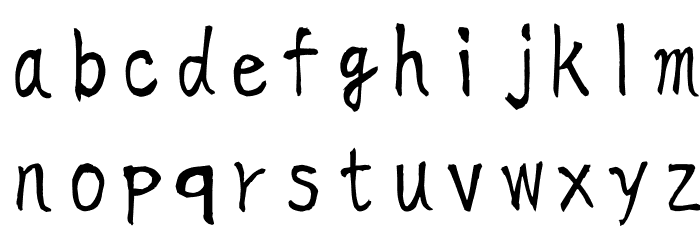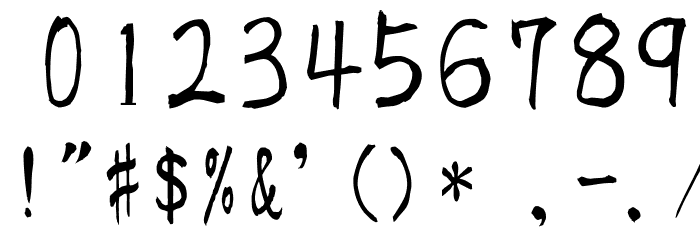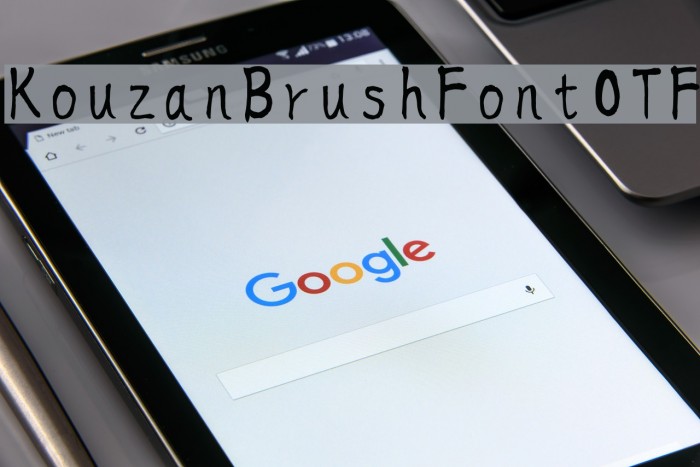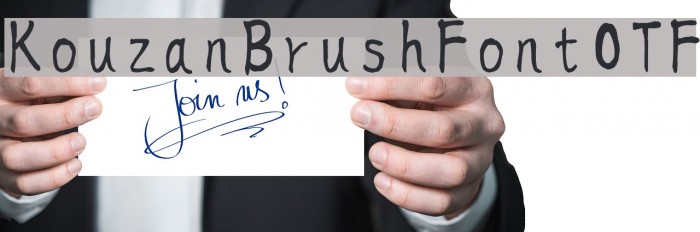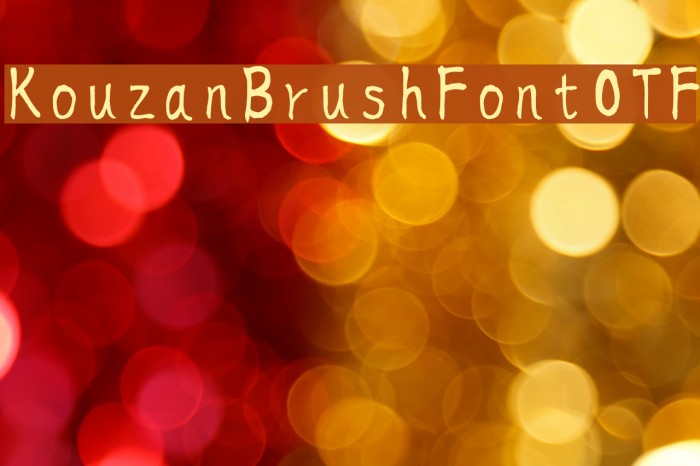
KouzanBrushFontOTF Font
This font exudes a dynamic and artistic flair, characterized by its brush-like strokes that convey a sense of movement and energy. The letters are unevenly weighted, giving it a hand-drawn appearance that is both casual and expressive. The uppercase and lowercase letters maintain a consistent style, with slightly exaggerated curves and angles that enhance its playful nature. The numerals and special characters follow suit, adding to the cohesive look of the font. Its organic and spontaneous feel makes it ideal for projects that require a personal touch or an artistic edge.
A dynamic, brush-style font with an artistic and hand-drawn appearance.
- Proposed Projects: Ideal for creative projects such as posters, invitations, branding, and artistic designs where a personal touch is desired.
- Overall Style: Artistic
- Use Case: Logos, Posters, Invitations